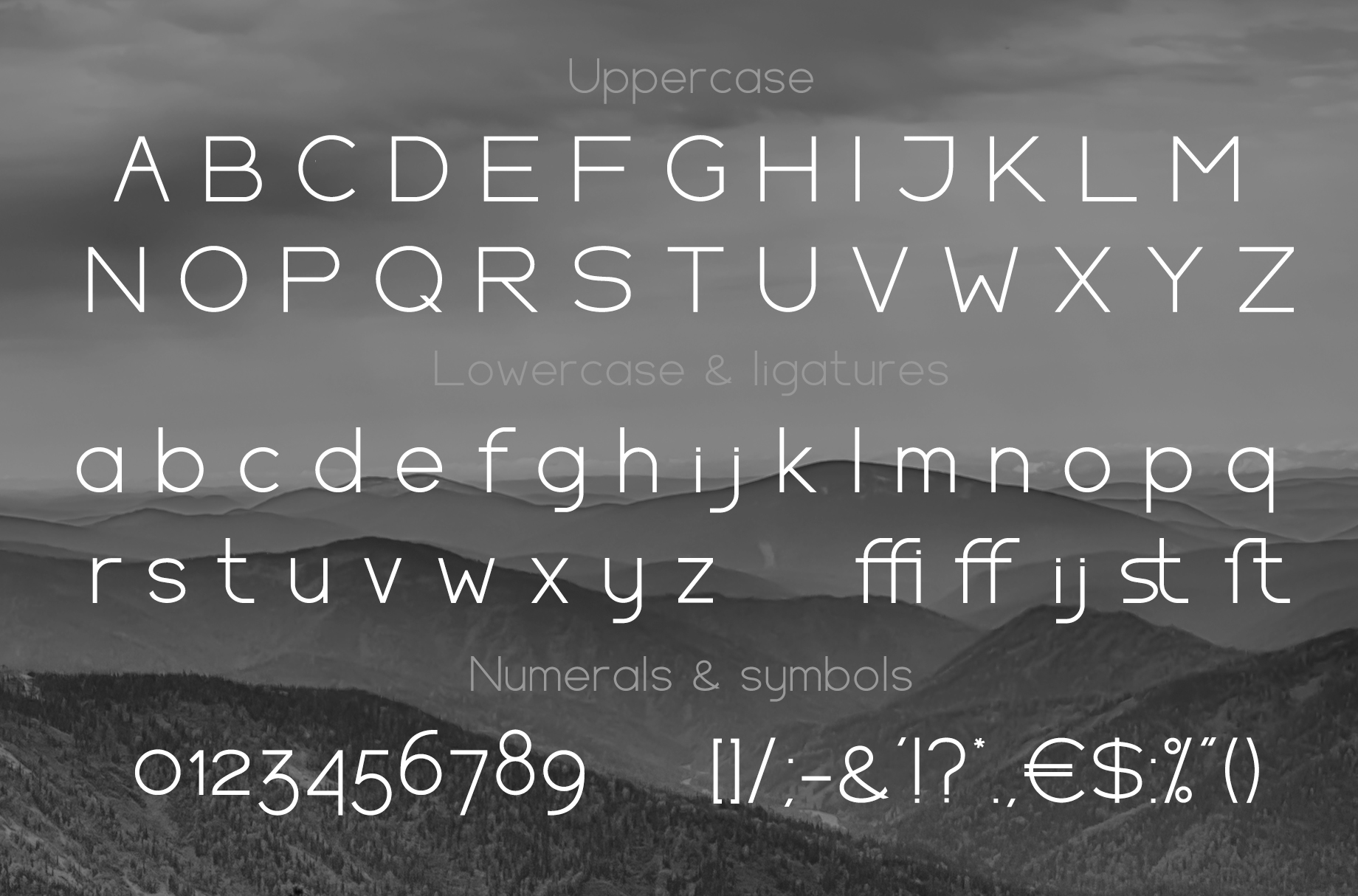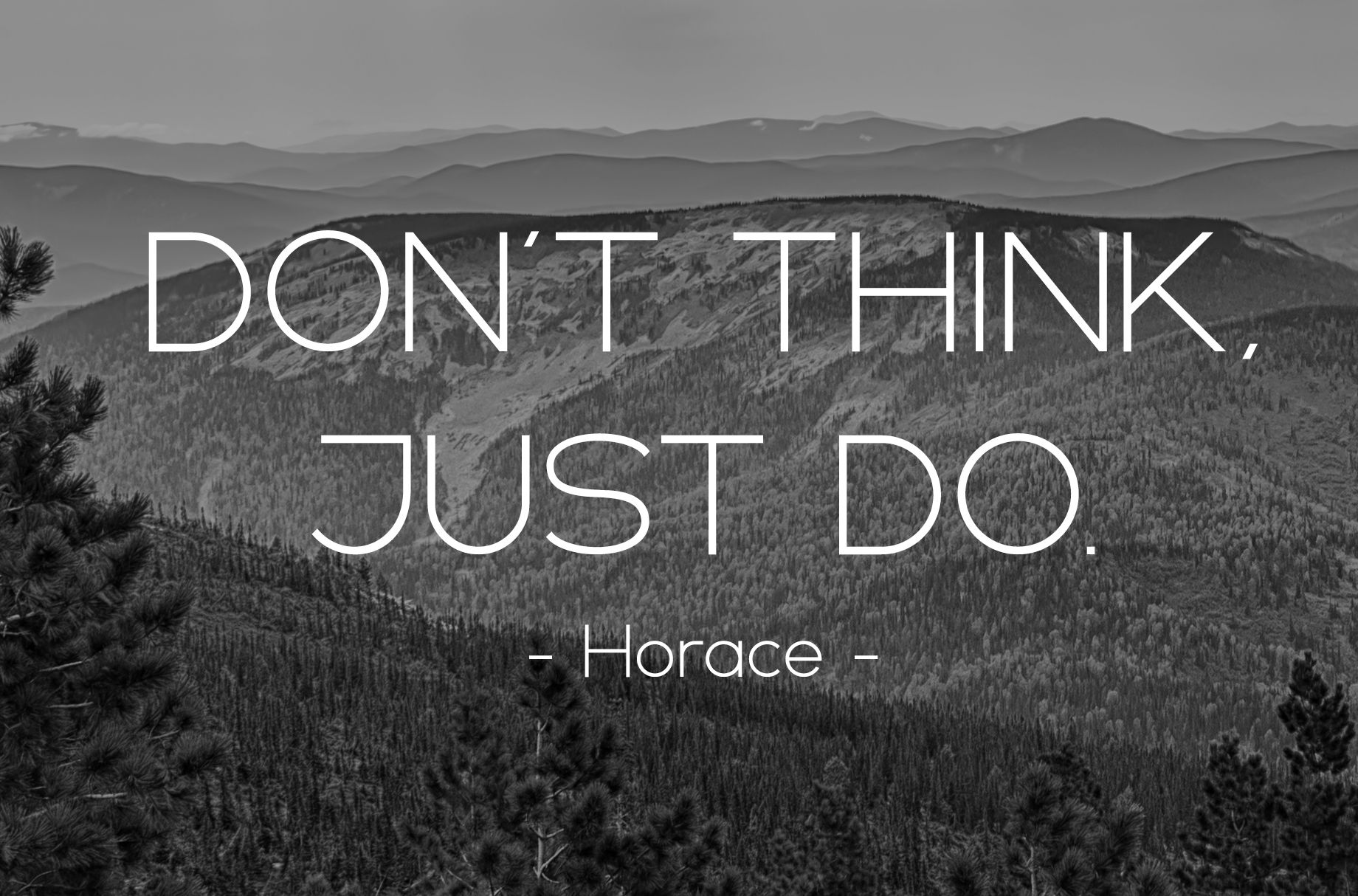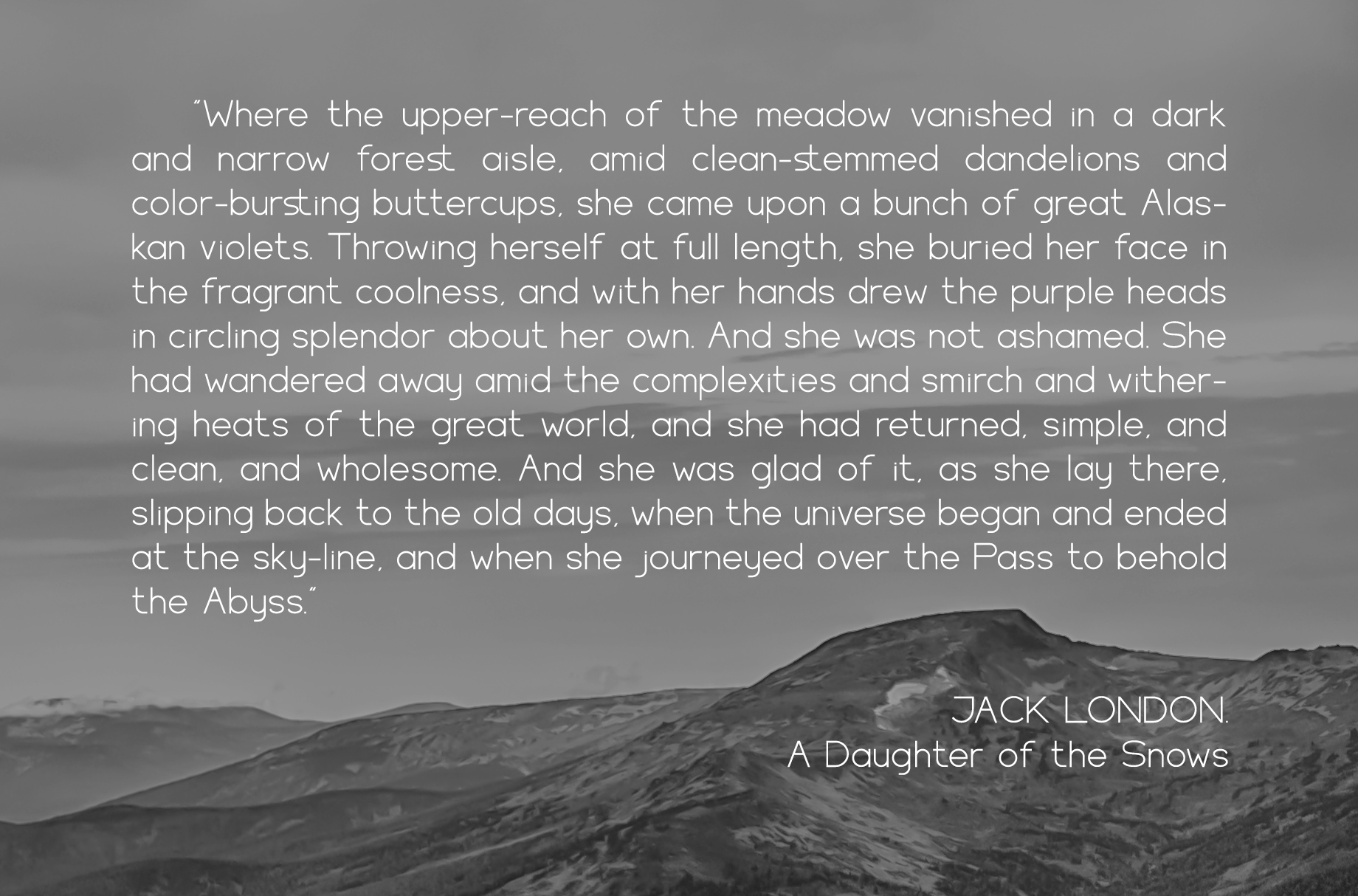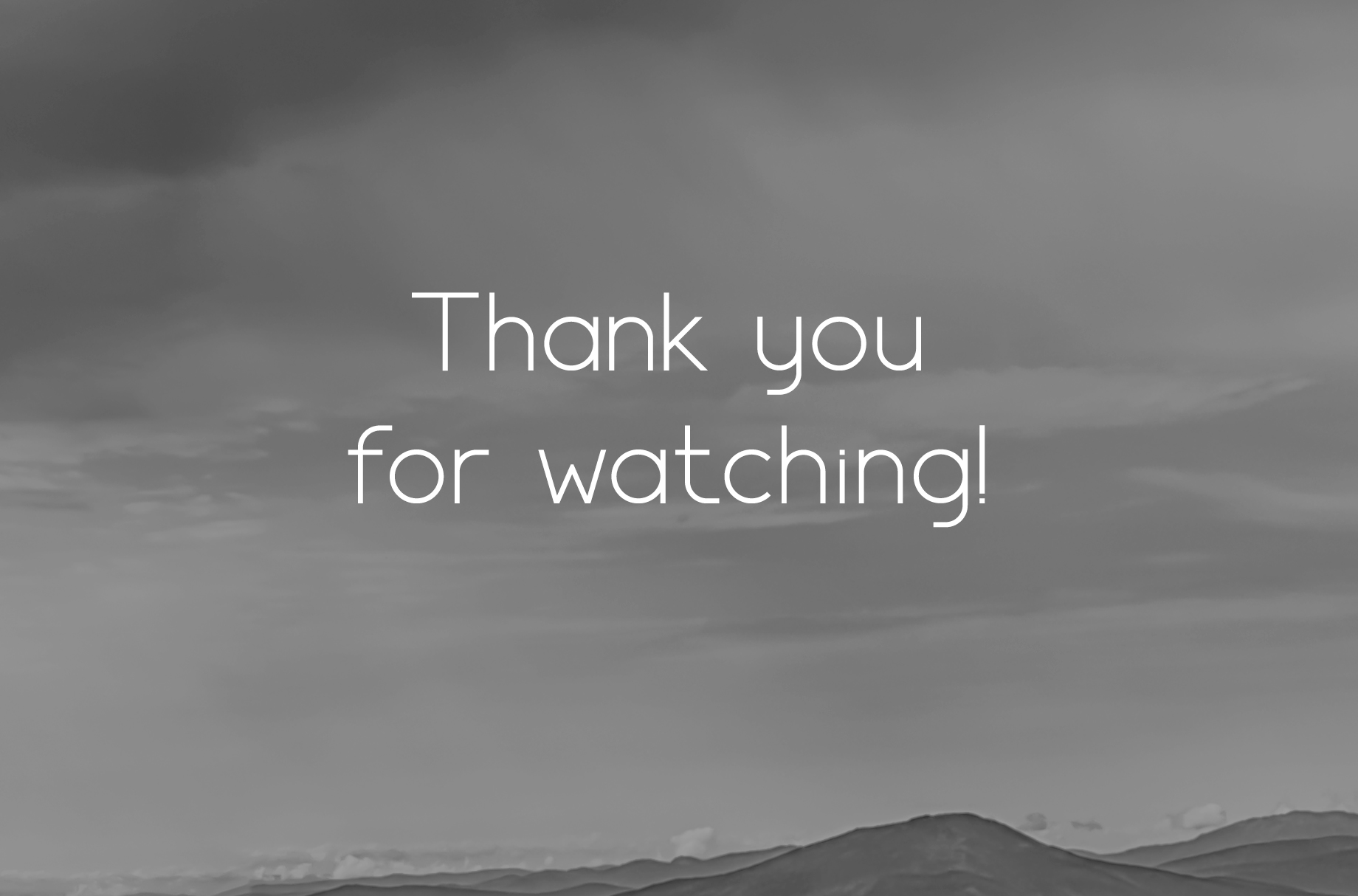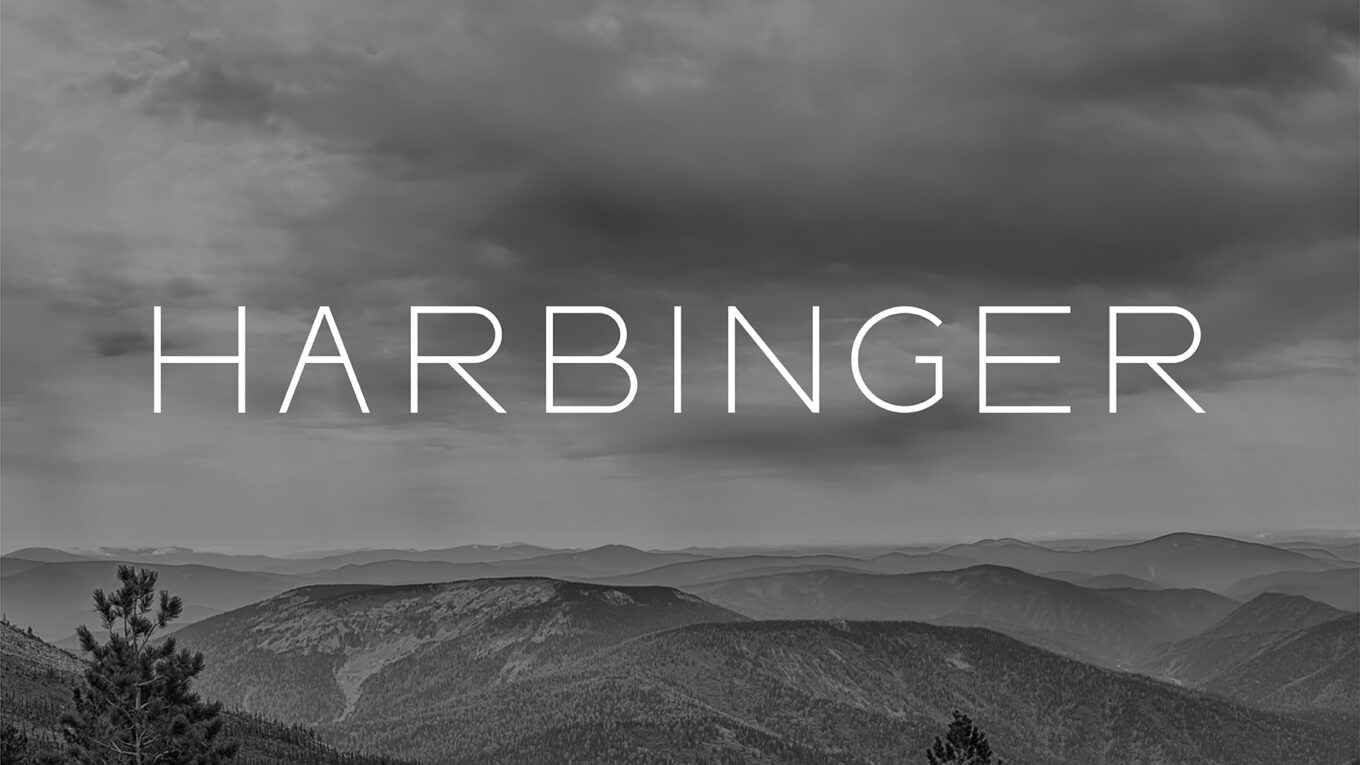
Harbinger Font: A Soft and Airy Sans Serif for Modern Designs
In the world of typography, fonts play a crucial role in conveying the tone and personality of a brand or design. For designers and crafters looking for a unique and versatile font, Harbinger is an excellent choice. This wide sans serif font is characterized by its soft geometry and airy feel, making it perfect for a wide range of designs and applications.
What is Harbinger Font?
Harbinger is a modern sans serif font designed to provide a fresh and clean look to various designs. Its soft geometry and generous spacing give it a unique and distinctive appearance. The font is wide, making it ideal for headlines, titles, and display text. Harbinger’s neutral and calm demeanor makes it an excellent choice for designers looking for a font that won’t overpower the content.
Key Features of Harbinger Font
• Soft Geometry: Harbinger’s soft geometry sets it apart from other sans serif fonts. Its rounded edges and smooth curves give it a friendly and approachable feel.
• Wide and Airy: The font’s wide letter spacing and generous x-height make it easy to read and perfect for display text.
• Neutral and Calm: Harbinger’s neutral tone makes it an excellent choice for designs that require a calm and professional demeanor.
• Highly Versatile: Harbinger is suitable for a wide range of designs, from modern brochures to trendy websites and social media graphics.
Use Cases for Harbinger Font
Harbinger’s versatility makes it suitable for various design applications. Here are some use cases where Harbinger shines:
• Headings and Titles: Harbinger’s wide and airy design makes it perfect for headings and titles, adding visual interest to any design.
• Display Text: The font’s soft geometry and generous spacing make it ideal for display text, such as posters, flyers, and billboards.
• Branding and Identity: Harbinger’s neutral tone and modern feel make it an excellent choice for branding and identity designs, such as logos, business cards, and letterheads.
• Web Design: Harbinger’s clean and airy design makes it suitable for web design, including website headers, section titles, and call-to-actions.
Tips for Using Harbinger Font
To get the most out of Harbinger, here are some tips for using the font:
• Pair with Other Fonts: Harbinger pairs well with other fonts, especially serif fonts, to create a visually appealing contrast.
• Experiment with Colors: Harbinger’s neutral tone makes it suitable for various color schemes. Experiment with different colors to find the perfect combination.
• Adjust Font Size: Harbinger’s wide design makes it perfect for large font sizes. Experiment with different font sizes to find the perfect balance.
Harbinger is a versatile and modern sans serif font that offers a unique and distinctive appearance. Its soft geometry, wide letter spacing, and neutral tone make it perfect for a wide range of designs and applications. Whether you’re a designer or crafter, Harbinger is an excellent choice for adding a touch of modernity and sophistication to your designs.